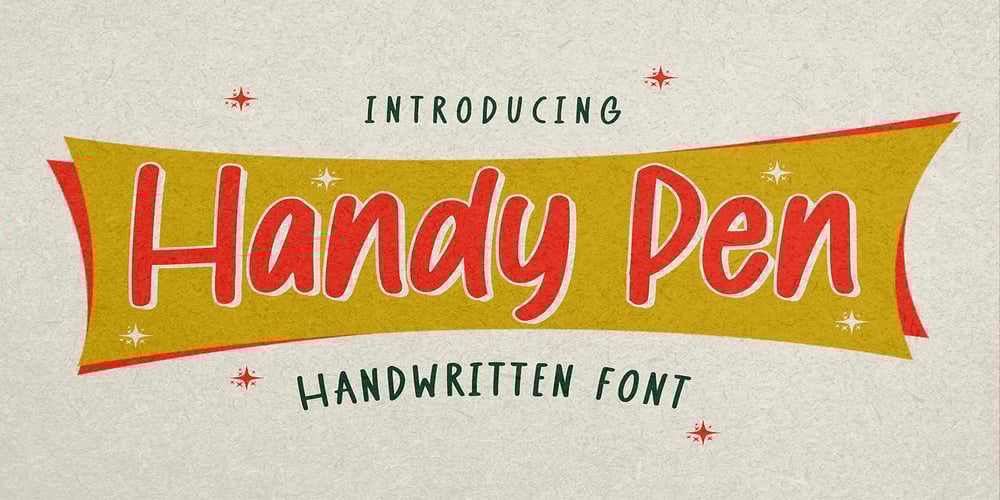
Handy Pen Font Family was designed by Abdul Malik Wisnu, Anang Fibriyanto and published by Gassstype. Handy Pen contains 1 styles and family package options. Hello Everyone, introduce our new product Font Handy Pen it is Handwritten Font,This is a Textured Natural Style and classy style with a clear style and dramatic movement.This font Handy Pen is great for your next creative project such as logos, Logotype, Letterhead, Poster, Design this font is great for your creative projects such as watermark on photography, and perfect for logos & branding, invitation,advertisements,product designs, stationery, wedding designs,label ,product packaging, special events or anything that need handwritting taste.